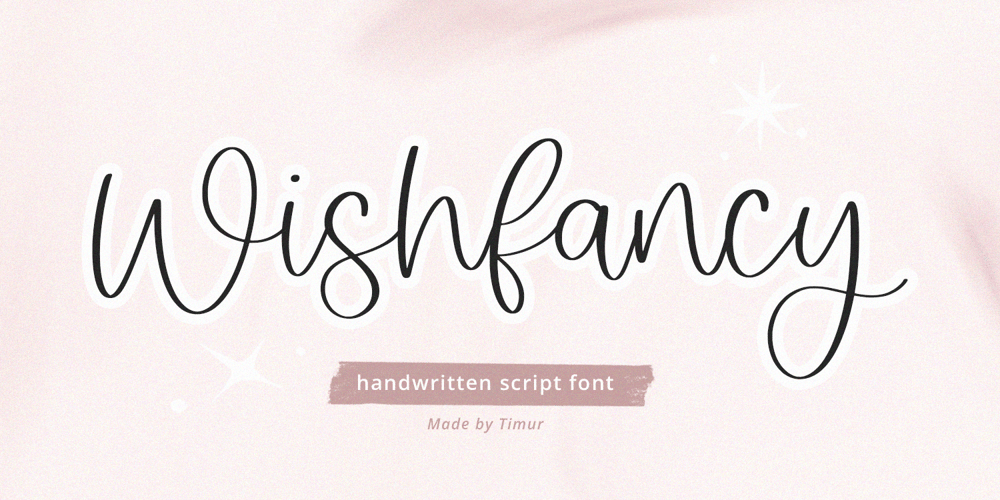
Wishfancy Font Family was designed by Wara Sigit Tri Pamungkas and published by Timurtype. Wishfancy contains 1 styles and family package options. Introducing by Timur typeProudly Present, Wishfancy A Handwritten Script FontWishfancy is perfect for product packaging, branding project, megazine, social media, wedding, or just used to express words above the background.Wishfancy also multilingual support.Embelish your designs with our original fonts.Enjoy the font,Thank you!